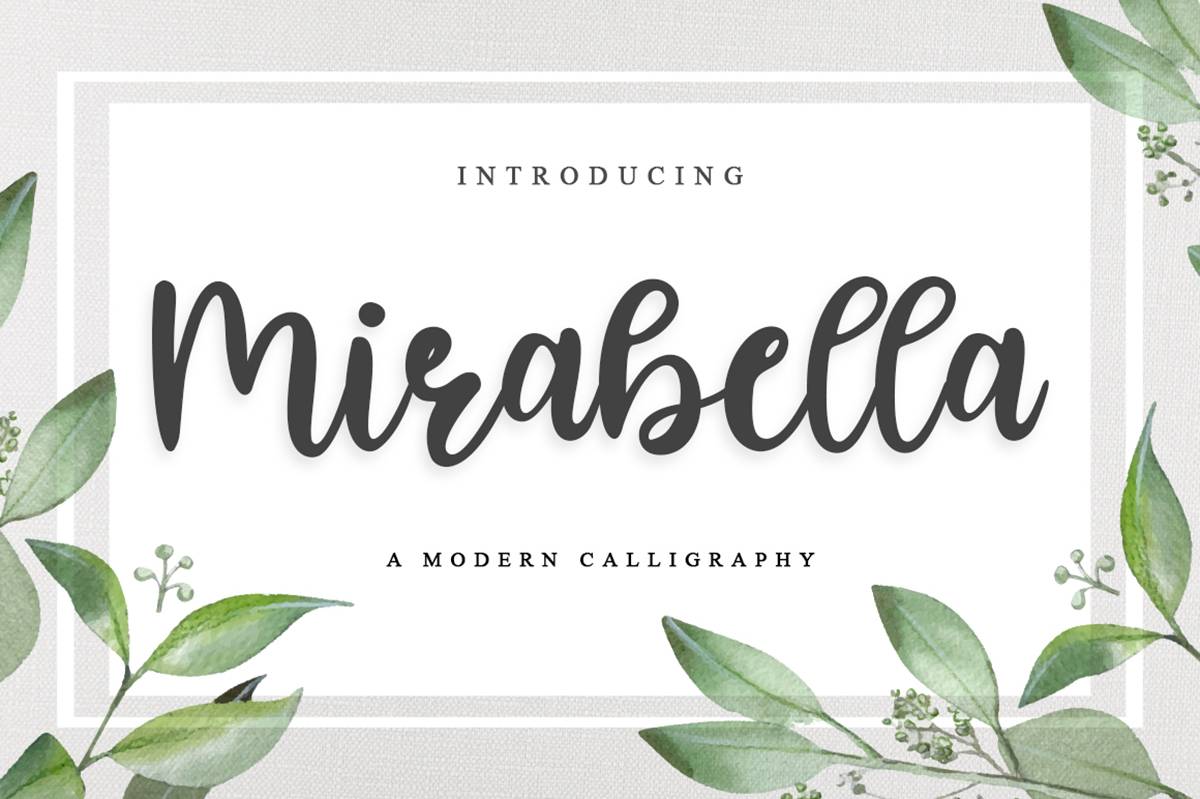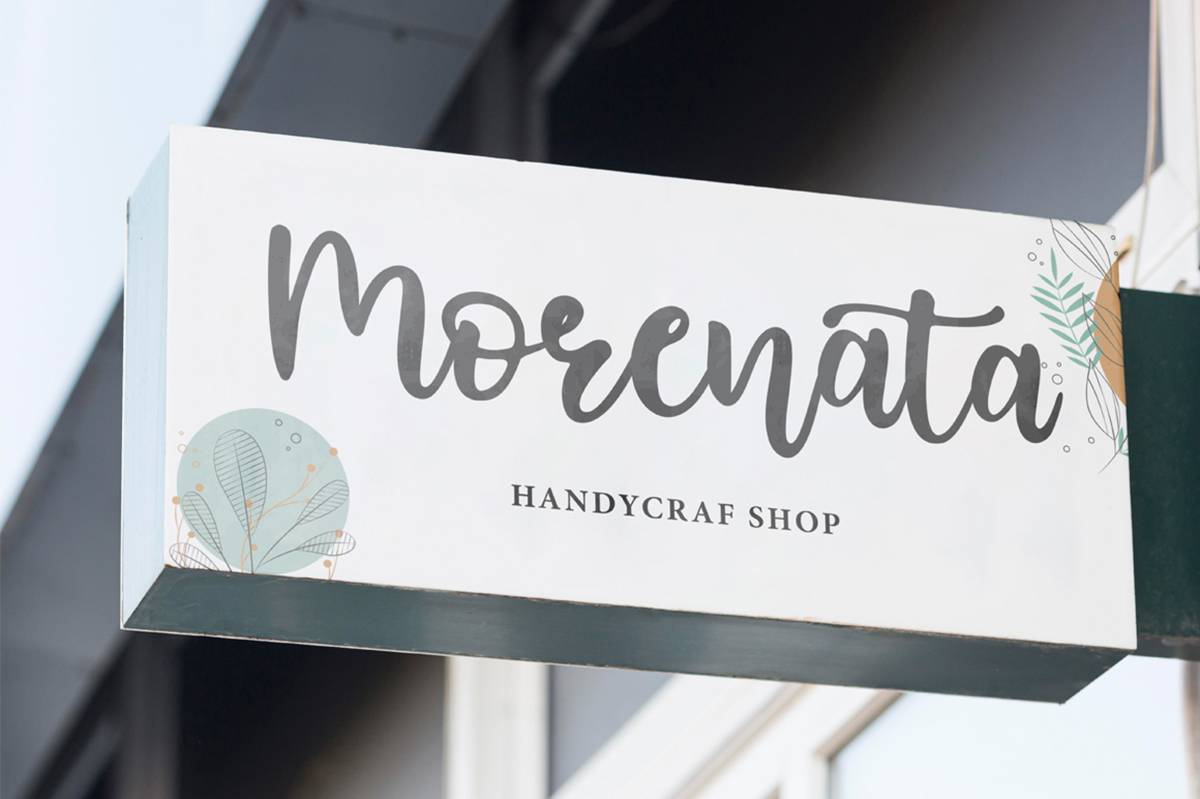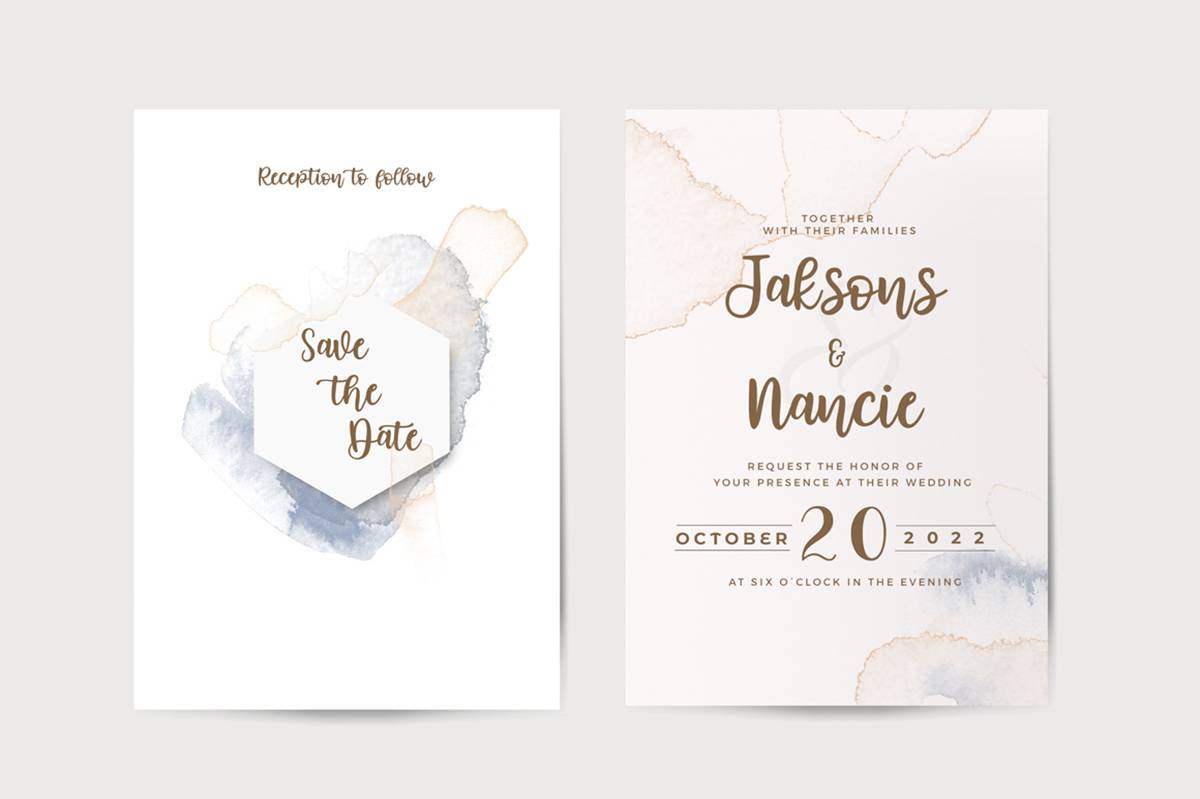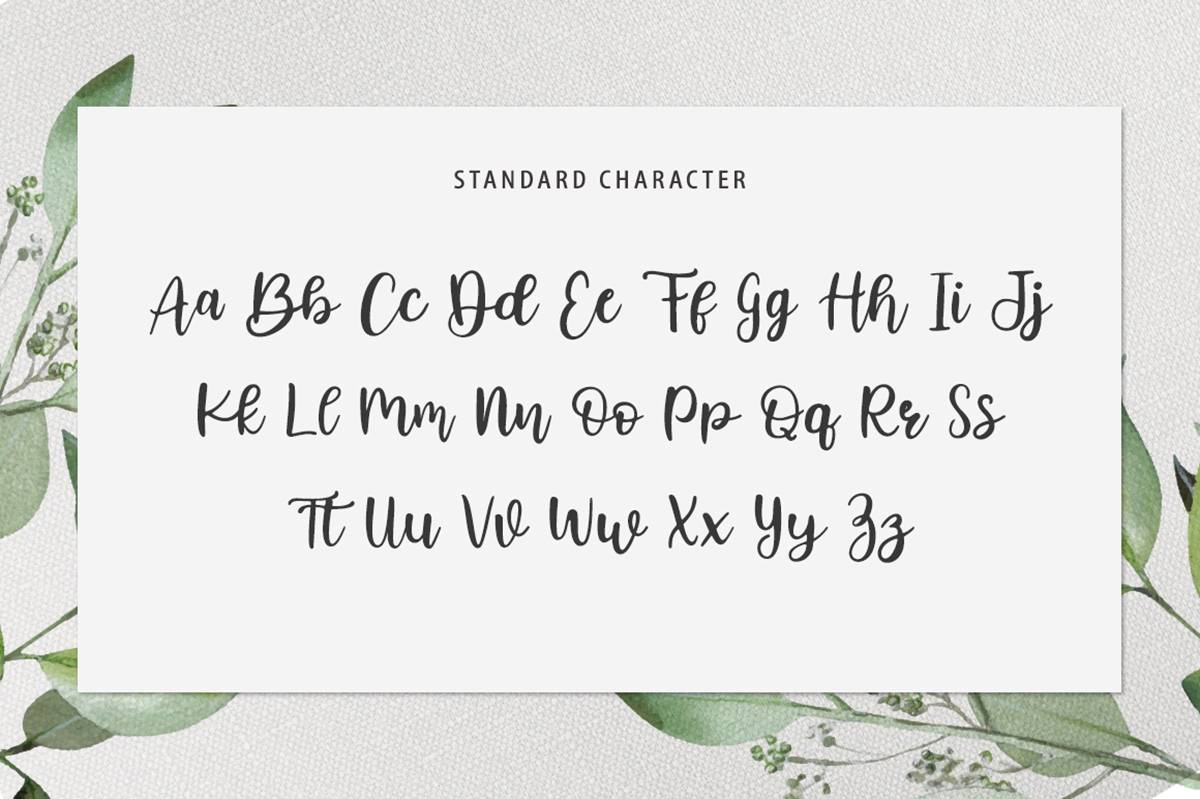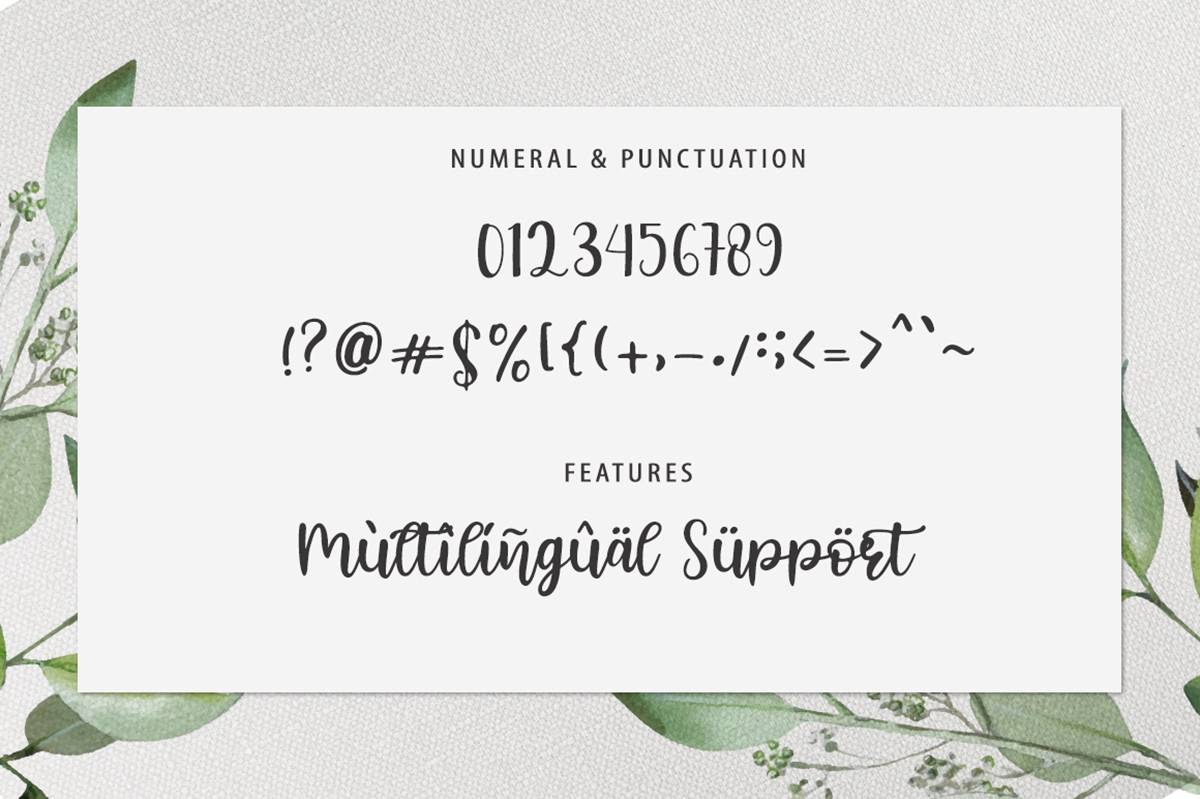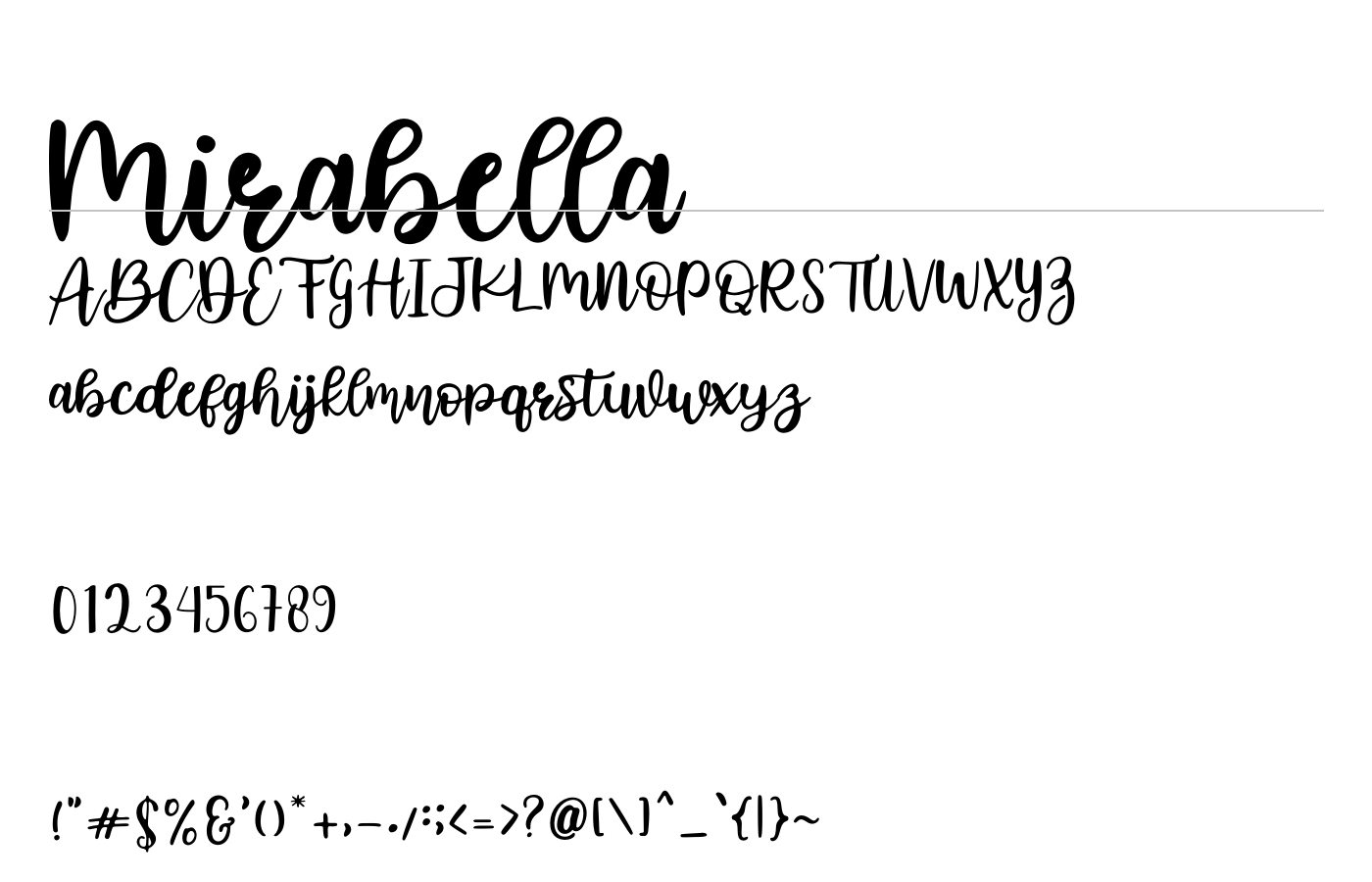
Mirabella Script is a playful and elegant handwritten script font with smooth, rounded strokes and a lively, casual feel. Its upright, moderately condensed letterforms feature a friendly mix of thick and thin lines, giving it personality and warmth, ideal for creative branding, invitations, and social media designs that want to convey charm and approachability. This font works well in headline or display use due to its distinctive style and clear readability.
Mirabella Script Font
About Mirabella Script Font
| Font family | Mirabella Script Font |